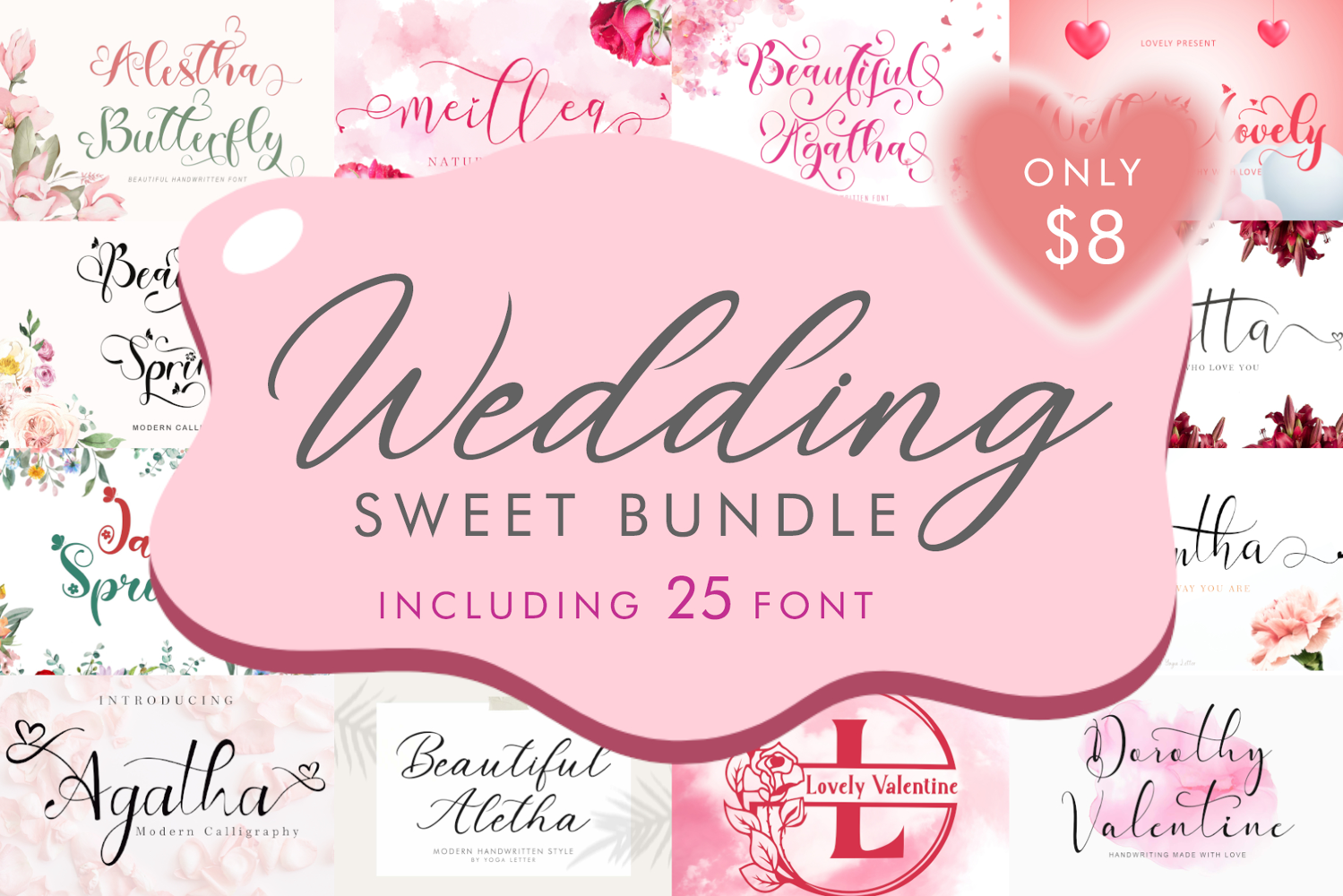
Wedding Sweet Bundle
This bundle contains 25 beautiful font:
1. Adellia https://fontbundles.net/yogaletter6/946429-adellia
2. Amalia Valentine https://fontbundles.net/yogaletter6/3128799-amalia-valentine
3. Beautiful Agatha https://fontbundles.net/yogaletter6/3030910-beautiful-agatha
4. Beautiful Aletha https://fontbundles.net/yogaletter6/6231341-beautiful-aletha
5. Beautiful Spring https://fontbundles.net/yogaletter6/1915561-beautiful-spring
6. Bethy Valentine https://fontbundles.net/yogaletter6/3211762-bethy-valentine
7. Butter Christmas https://fontbundles.net/yogaletter6/2752805-butter-christmas
8. Charlotte Melody https://fontbundles.net/yogaletter6/3152290-charlotte-melody
9. Christmas Bonitha https://fontbundles.net/yogaletter6/4644246-christmas-bonitha
10. Christmas Celebration https://fontbundles.net/yogaletter6/2284418-christmas-celebration
11. Christmas Script https://fontbundles.net/yogaletter6/2231109-christmas-script
12. Christmas Style https://fontbundles.net/yogaletter6/2259725-christmas-style
13. Agatha https://fontbundles.net/yogaletter6/966477-agatha
14. Dorothy Valentine https://fontbundles.net/yogaletter6/3202323-dorothy-valentine
15. Honey Valentine https://fontbundles.net/yogaletter6/1756043-honey-valentine
16. Janetha Spring https://fontbundles.net/yogaletter6/3544676-janetha-spring
17. Khalitta https://fontbundles.net/yogaletter6/969654-khalitta
18. Lovely Style https://fontbundles.net/yogaletter6/1807166-lovely-style
19. Lovely Valentine Monogram https://fontbundles.net/yogaletter6/1770271-lovely-valentine-monogram
20. Maretha https://fontbundles.net/yogaletter6/954476-maretha
21. Meillea https://fontbundles.net/yogaletter6/937018-meillea
22. Sanantha https://fontbundles.net/yogaletter6/961863-sanantha
23. Shalitta https://fontbundles.net/yogaletter6/943256-shalitta
24. Thanks Beauty https://fontbundles.net/yogaletter6/6179733-thanks-beauty
25. With Lovely https://fontbundles.net/yogaletter6/1795926-with-lovely